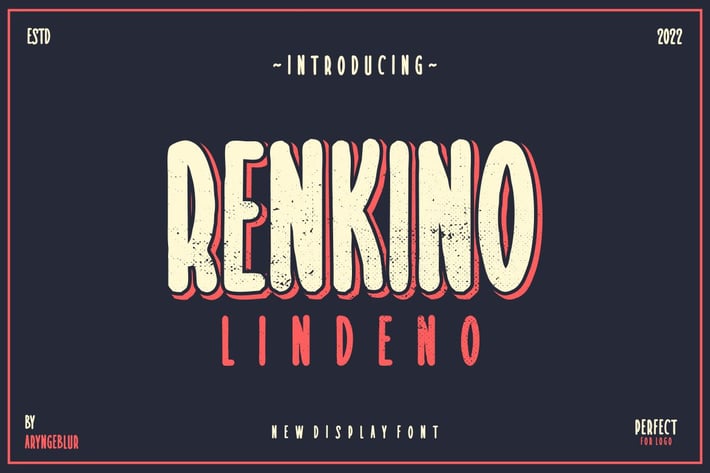
Renkino Lindeno Font
Introducing Renkino Lindeno , a cool and elegant modern sans serif font. Elegant font feel. This font gives you a beautiful and modern atmosphere. suitable for t-shirts, posters, book covers, cards, merchandise, etc.
Feature
+ Uppercase
+ Lowercase
+ Punctuation
+ Numbe